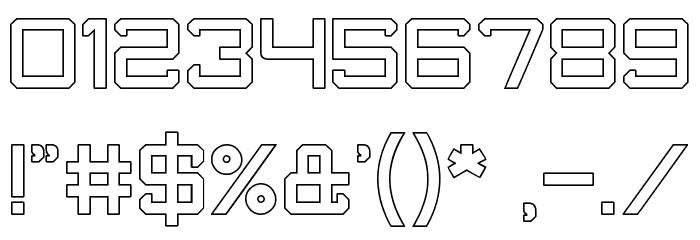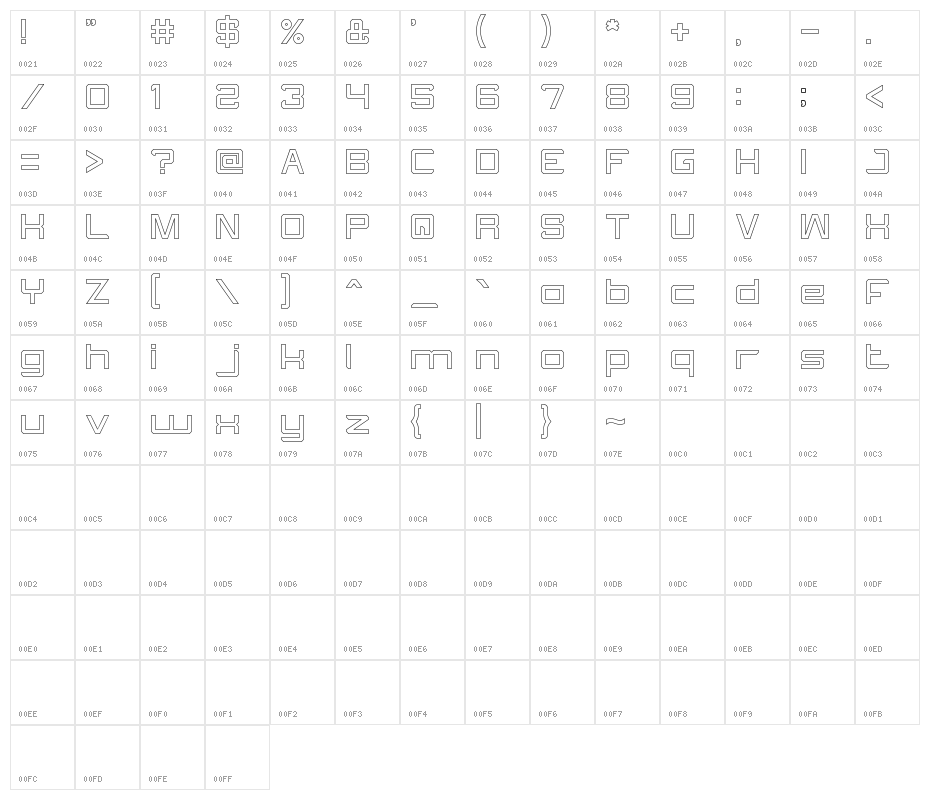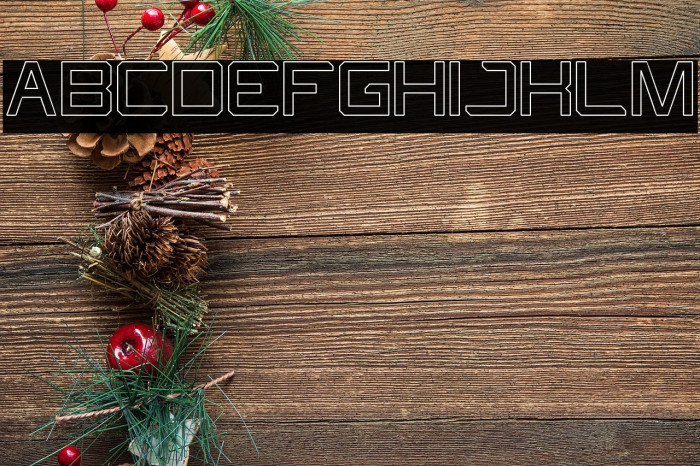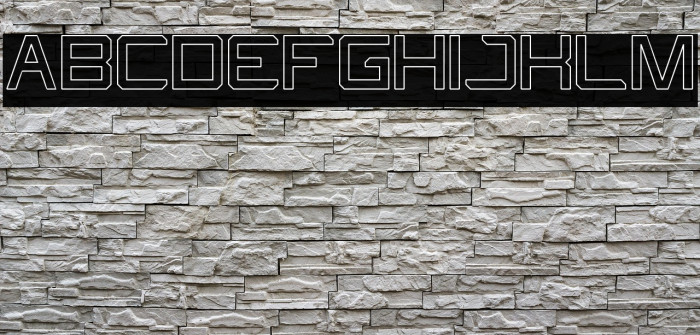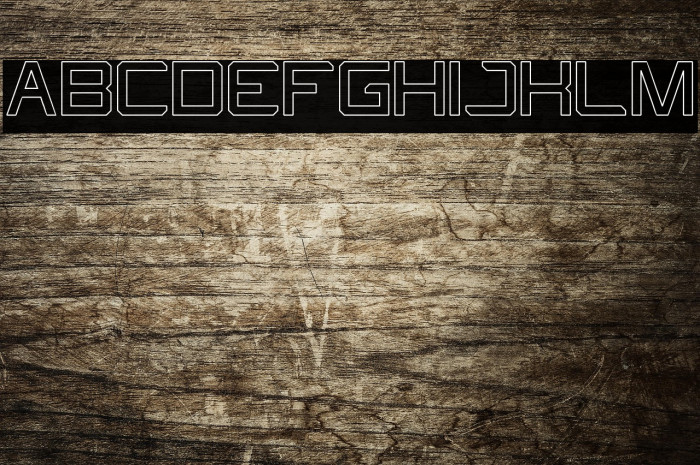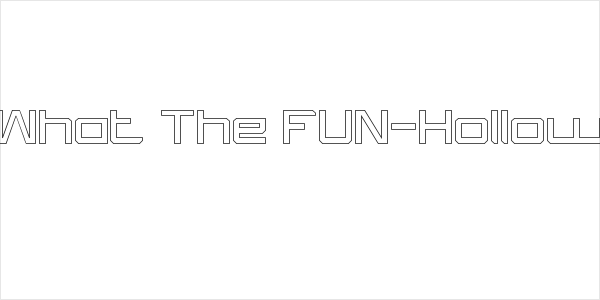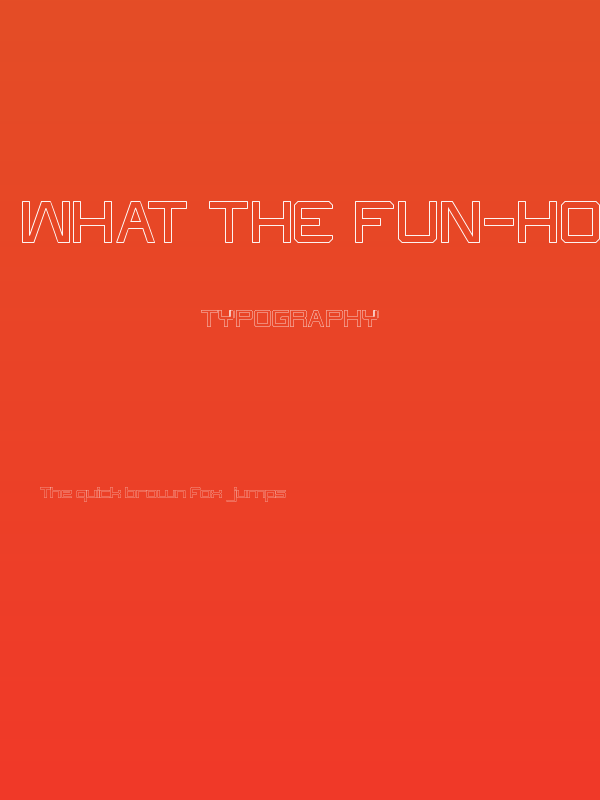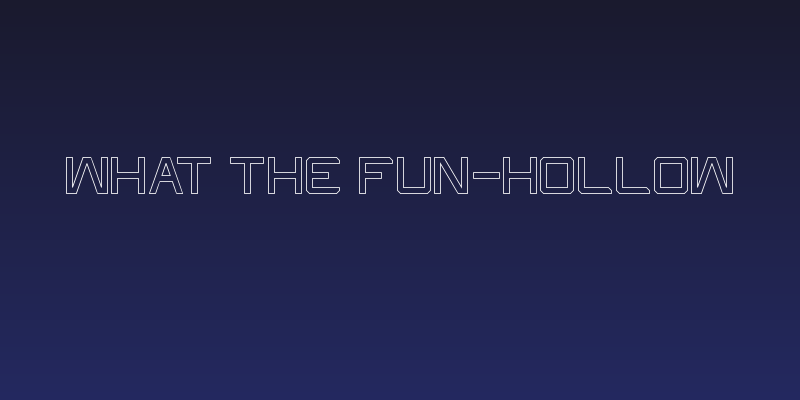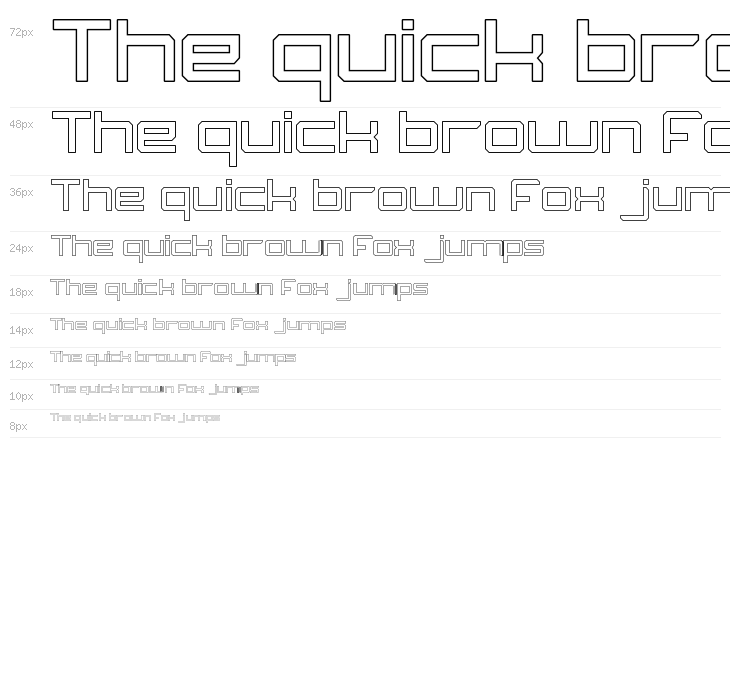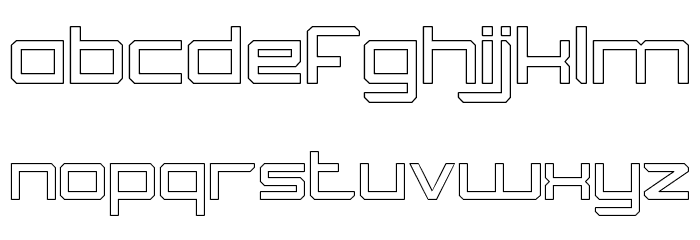
What The FUN-Hollow Font
What The FUN-Hollow Description
This font features a hollow, geometric design with a modern and playful aesthetic. The characters are outlined, creating a unique, open look that is both bold and eye-catching. The uppercase and lowercase letters maintain a consistent structure, with sharp angles and straight lines that give the font a futuristic feel. The numerals and special characters follow the same design principles, ensuring uniformity across all glyphs. This font's distinct style makes it ideal for projects that require a standout, contemporary appearance.